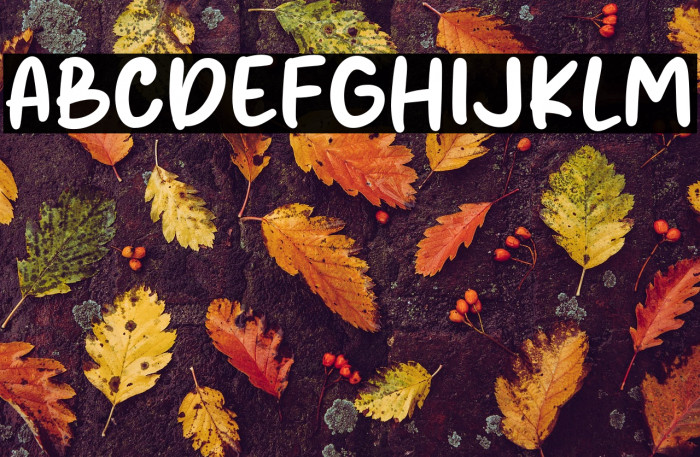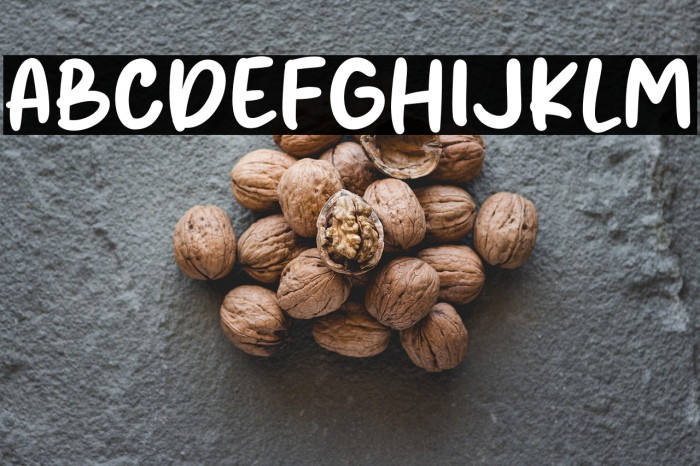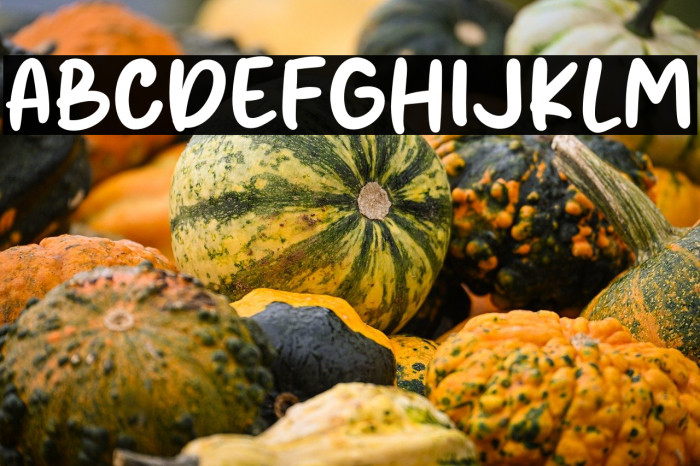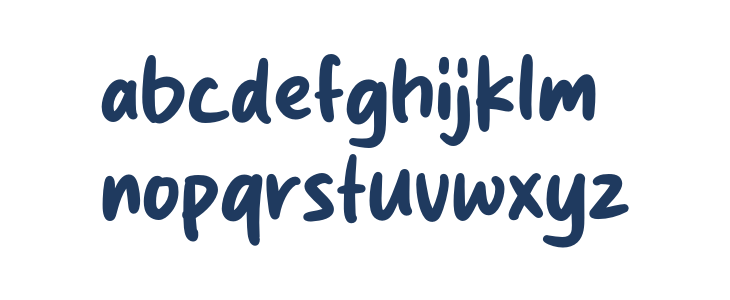
Simple Cake Font
Simple Cake Description
This font exhibits a playful and casual handwritten style, characterized by its bold and rounded letterforms. The strokes are consistent in thickness, giving it a uniform appearance. The letters are slightly slanted, adding a dynamic and informal touch. The font maintains a friendly and approachable vibe, making it suitable for creative and informal projects. The character spacing is moderately tight, ensuring readability while maintaining a cohesive look. The numbers and special characters are designed to match the playful aesthetic of the alphabet, ensuring a harmonious overall appearance.
| Use Case | Logos, Headlines, Informal Text |
| Proposed Projects | Ideal for greeting cards, children's books, playful branding, and social media graphics. |